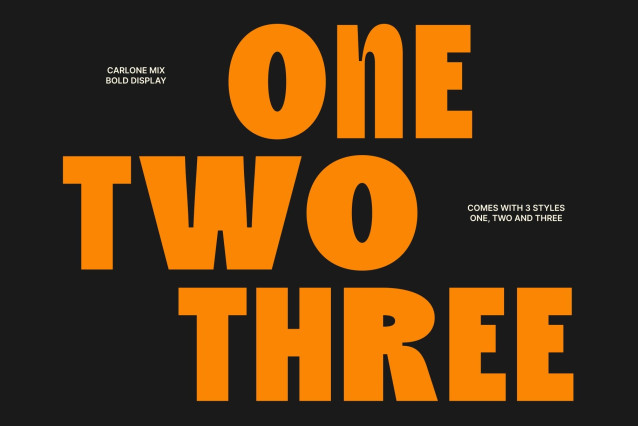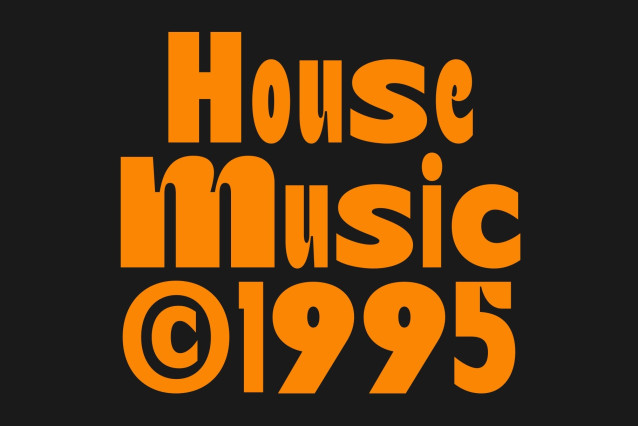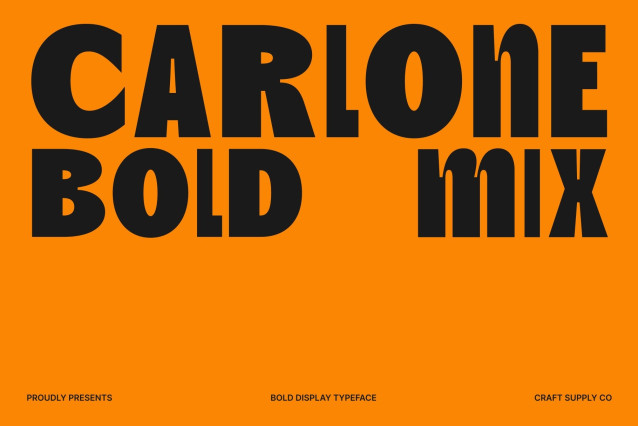
Carlone Mix Font
Carlone Mix – Bold Sans Serif Font: Strong Impact with Modern Artistic Character
Prominent Sans Serif with Mixed Style Personality
This is a bold sans serif font designed to deliver strength, clarity, and modern visual impact. Built with thick strokes and confident shapes, this typeface introduces a distinctive mixed-style concept that enhances its bold personality. The combination of strong structure and artistic contrast gives a unique identity that feels both powerful and stylish.
A Hybrid Blend of Bold and Regular Letterforms
What makes this font stand out is its creative fusion of bold and regular styles within the character set. This hybrid approach creates a dynamic rhythm and visual contrast that adds depth and interest to typography. The interplay between heavy strokes and balanced forms brings an expressive and contemporary tone, allowing text to feel energetic, eye-catching, and memorable.